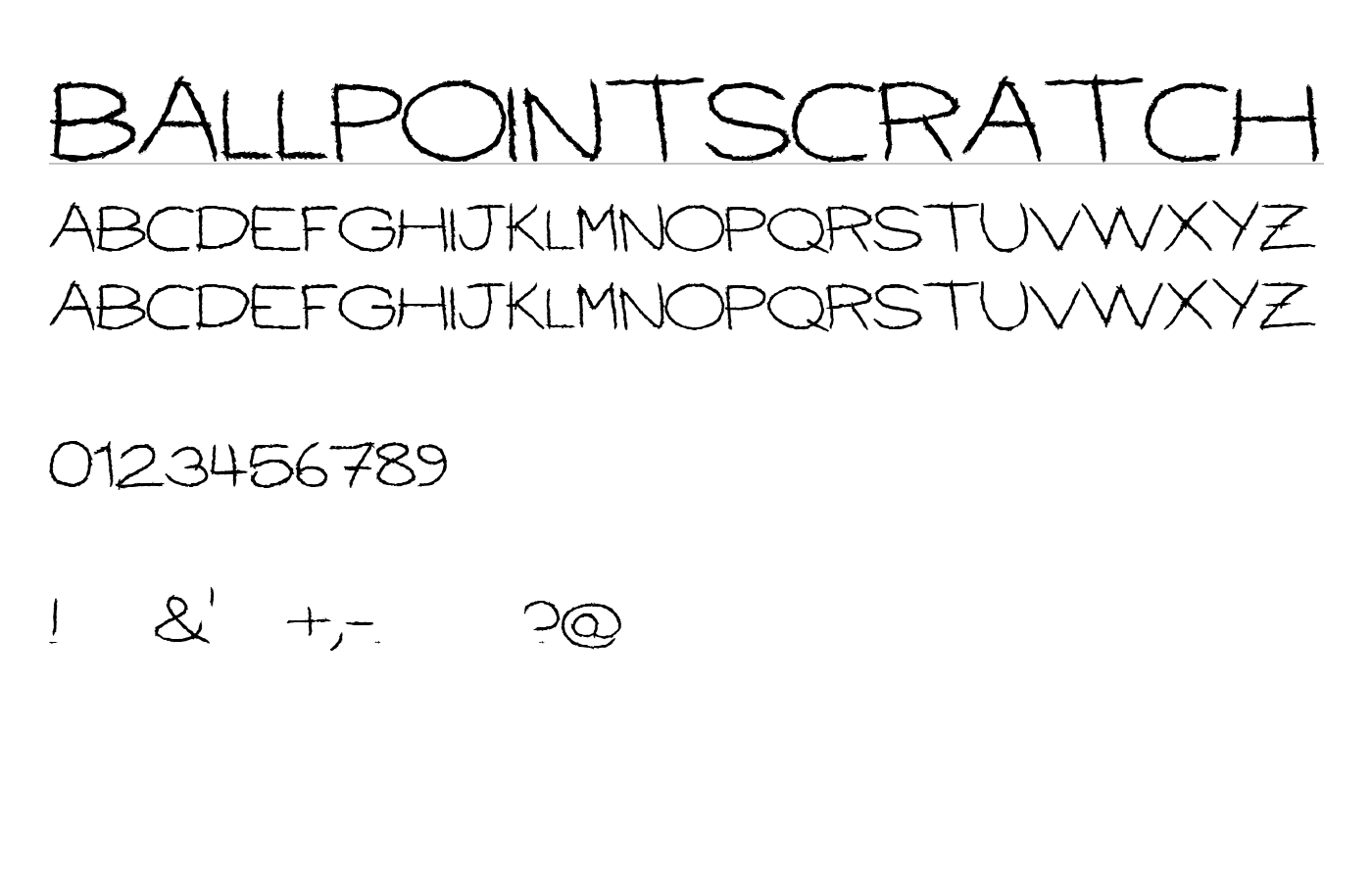
BallpointScratch is a quirky, handwritten sans serif font that mimics the uneven, textured lines of pen scratches, giving it an informal and playful character. Its narrow and slightly irregular letterforms create a casual, approachable feel, making it ideal for creative projects, personal notes, and designs that seek a unique, hand-drawn touch. This font works well in headlines, logos, and social media graphics where a distinctive, organic style is desired.
BallpointScratch Font
About BallpointScratch Font